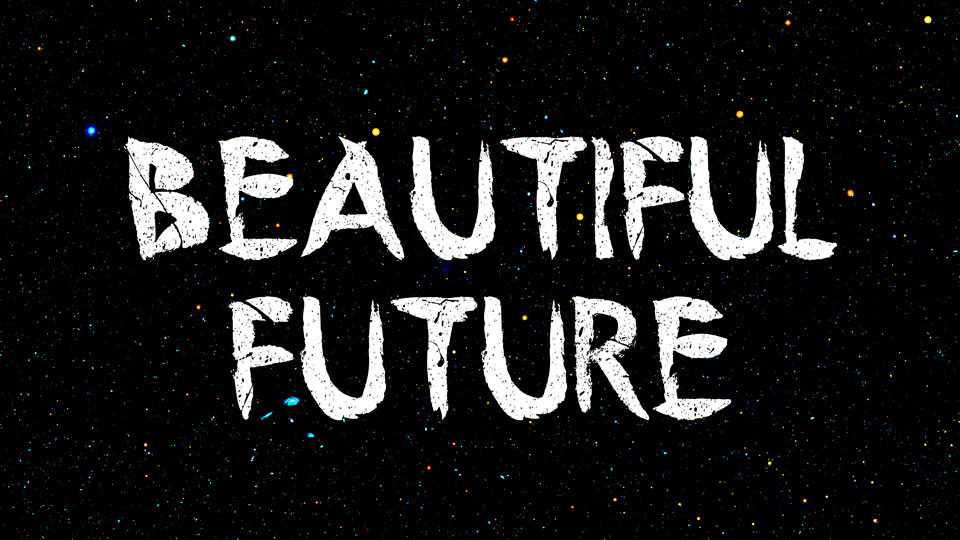
Download Beautiful Future font, a display typeface with a grunge and distressed look. Beautiful Future font fits great for posters, headlines, flyers, t-shirts and apparel, social media and more.